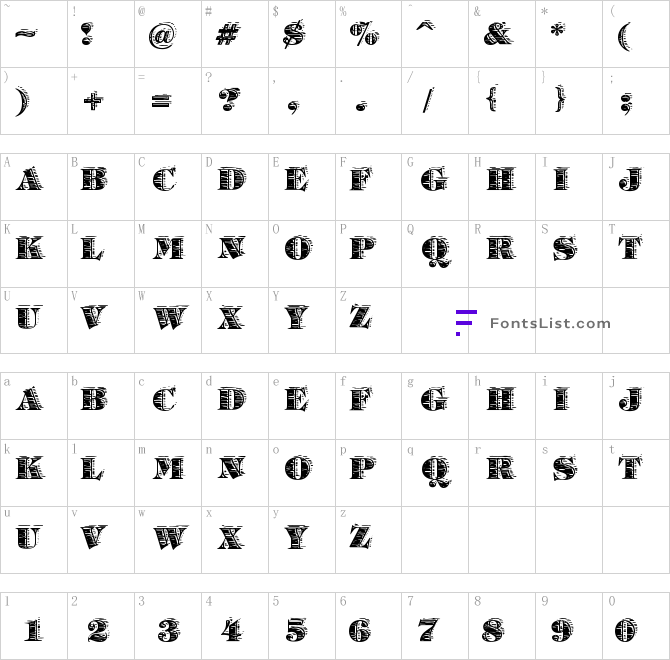
- Font Name:Barrelhouse All Caps
Barrelhouse-All-Caps.ttf is a very beautiful artistic font, Barrelhouse-All-Caps.ttf is widely used in the design and printing of various books and pictures,Barrelhouse-All-Caps.ttf has a strong visual impact,Barrelhouse-All-Caps.ttf is a commonly used font in newspapers, magazines and books, and is used in posters, e-commerce Poster design, store design, logo design, font design and other fields.Barrelhouse-All-Caps.